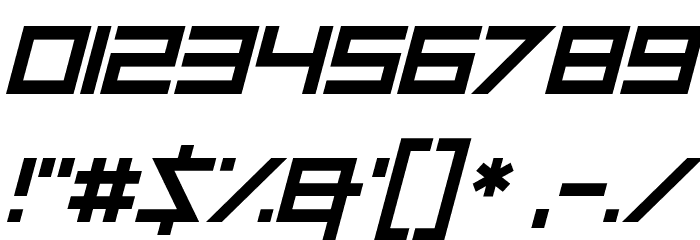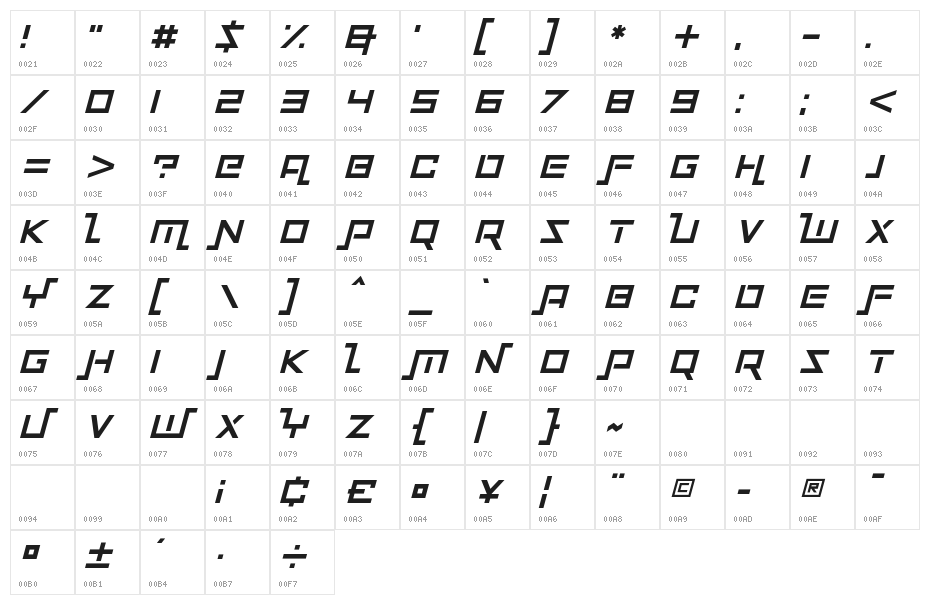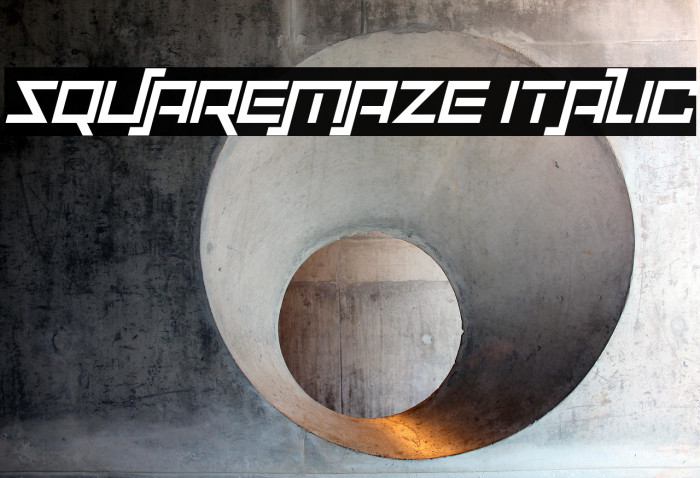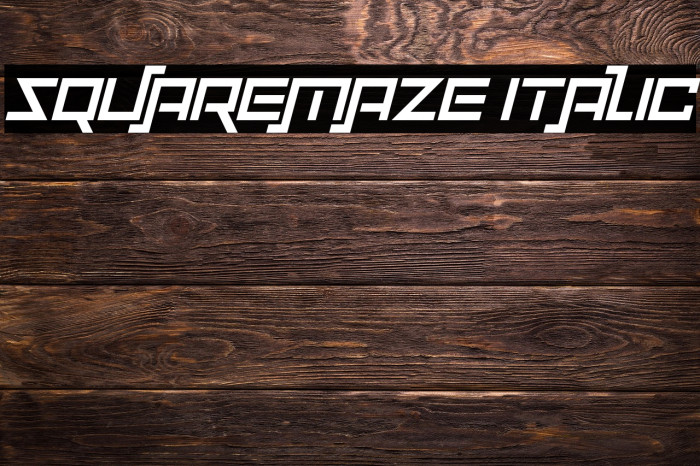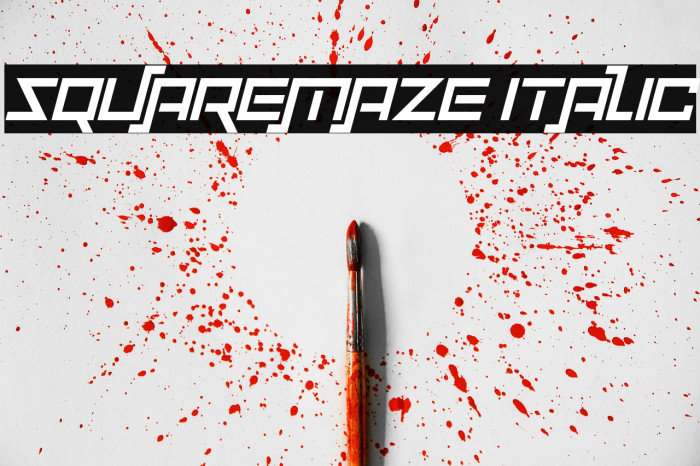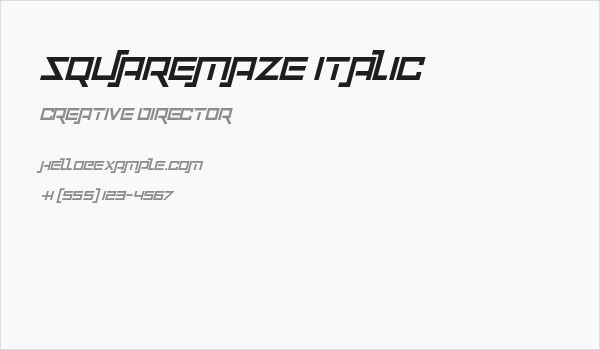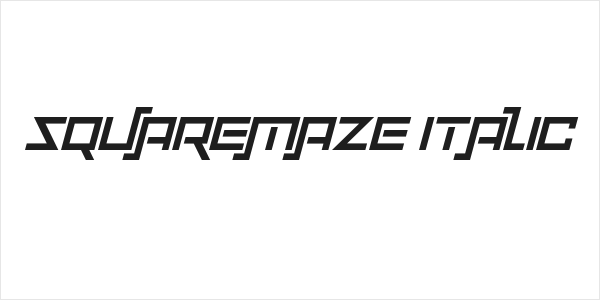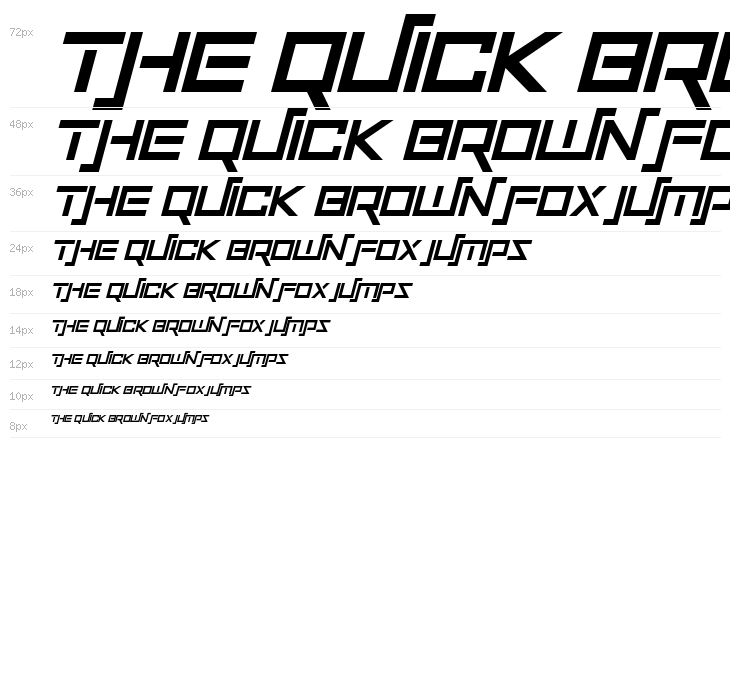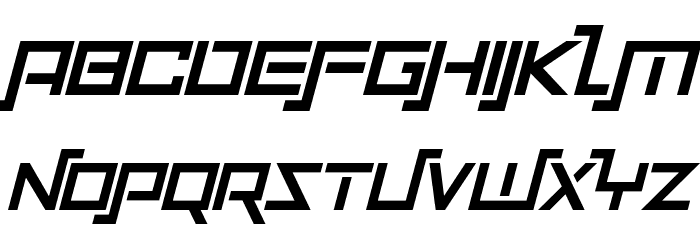
Squaremaze Italic Font
Squaremaze Italic Description
This font features a bold, geometric design with a futuristic and angular appearance. The characters are constructed with sharp, straight lines and right angles, giving them a maze-like quality. The italic style adds a dynamic, forward-leaning slant to the characters, enhancing their modern and edgy look. The uppercase and lowercase letters maintain a consistent style, with the lowercase being slightly smaller but equally bold. Numbers and special characters follow the same design principles, ensuring uniformity across all glyphs. The font's unique style makes it suitable for projects that require a strong visual impact.
| Proposed Projects | Ideal for sci-fi themed designs, video game graphics, technology branding, and modern posters. |